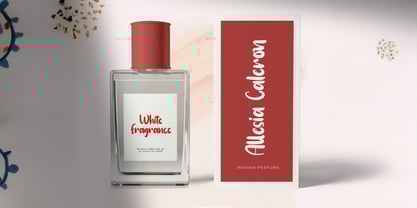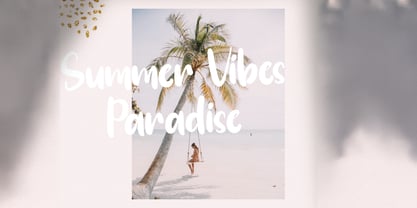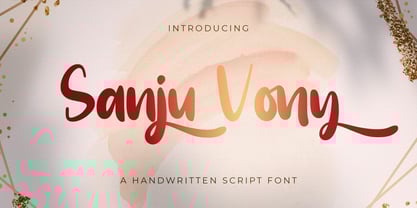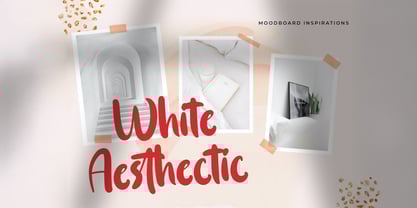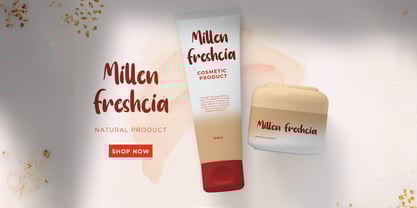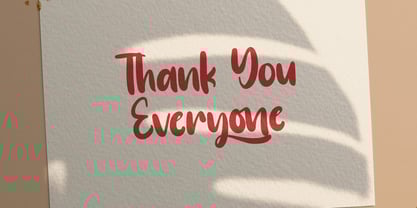
The Sanju Vony Font Family was designed by Virgiawan Listanto and published by Stringlabs Creative Studio. Sanju Vony contains 1 styles.
Sanju Vony is a clean and stylish handwritten font that blends simplicity with character. With smooth curves and a naturally flowing style, this font brings a warm, personal touch to your designs perfect for those who want to keep things elegant yet approachable.
Designers: Virgiawan Listanto
Publisher: Stringlabs Creative Studio
Foundry: Stringlabs Creative Studio
Design Owner: Stringlabs Creative Studio
Sanju Vony